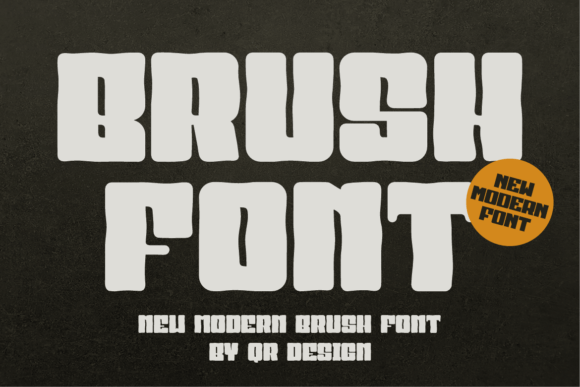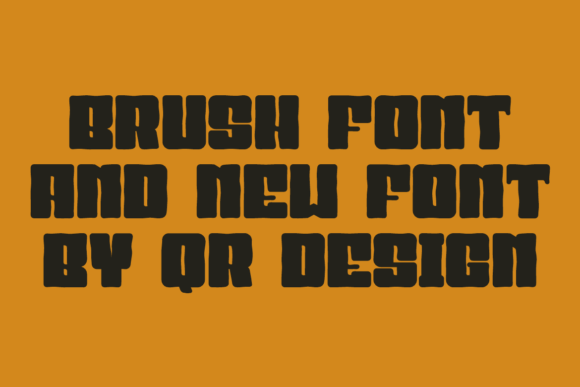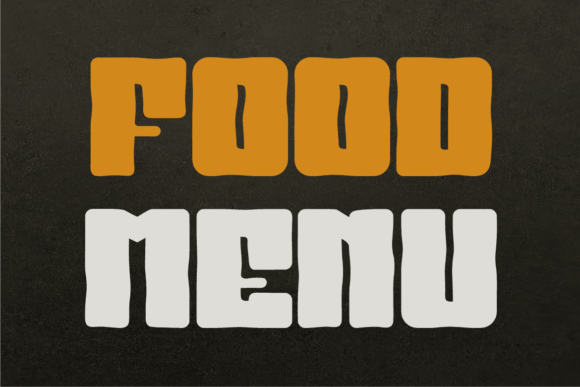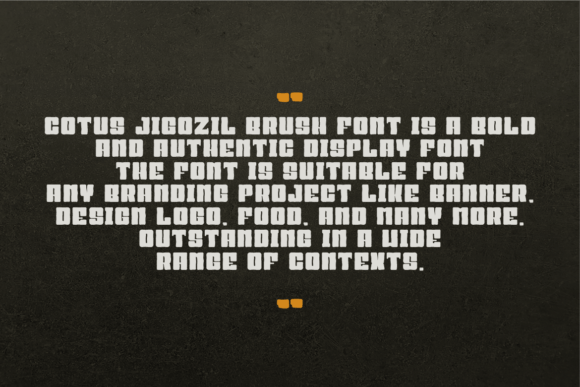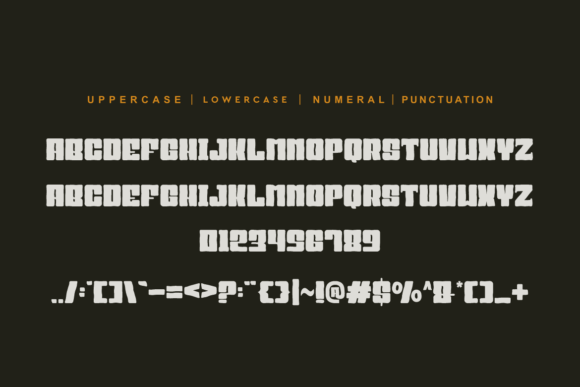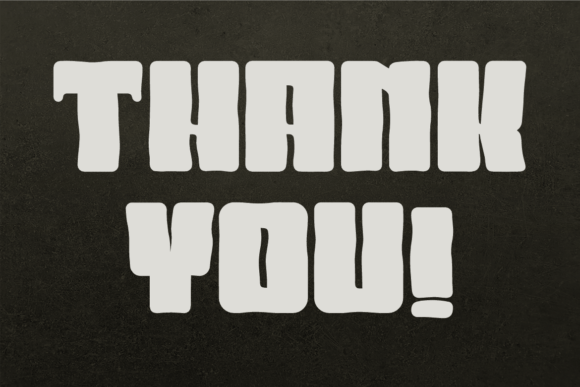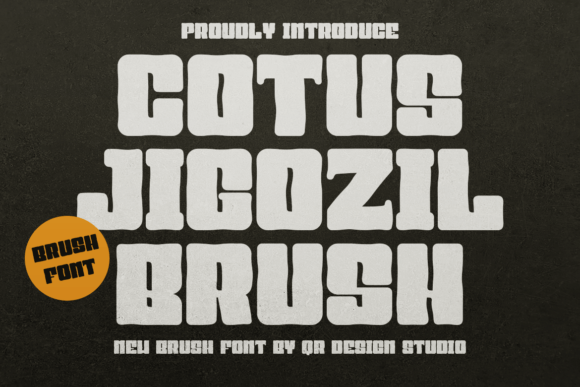
Cotus Jigozil Brush Font: Elevate Your Designs with a Bold and Authentic Display Font
In the world of typography, a font can make or break a design. When it comes to creating a lasting impression, designers and crafters need a font that is not only visually appealing but also versatile and authentic. This is where Cotus Jigozil Brush Font comes in – a bold and authentic display font that is perfect for a wide range of design projects.
What is Cotus Jigozil Brush Font?
Cotus Jigozil Brush Font is a unique and eye-catching display font that boasts a bold and authentic look. Its distinctive brush-stroked texture gives it a handcrafted feel, making it perfect for designs that require a personal touch. The font’s rugged and organic appearance makes it stand out in a wide range of contexts, from logos and t-shirt printing to food packaging and more.
Key Features of Cotus Jigozil Brush Font
- Bold and Authentic Display Font: Cotus Jigozil Brush Font is designed to make a statement. Its bold and authentic look makes it perfect for headlines, titles, and any design project that requires a strong visual impact.
- Versatile and Multi-Purpose: This font is suitable for a wide range of design projects, including logos, t-shirt printing, food packaging, and more. Its versatility makes it a valuable addition to any designer’s font library.
- Handcrafted Texture: The font’s brush-stroked texture gives it a handcrafted feel, making it perfect for designs that require a personal touch.
- Easily Readable: Despite its bold and rugged appearance, Cotus Jigozil Brush Font is easily readable, making it perfect for designs that require a clear and concise message.
Use Cases for Cotus Jigozil Brush Font
Cotus Jigozil Brush Font is perfect for a wide range of design projects, including:
- Logo Design: Create a bold and memorable logo with Cotus Jigozil Brush Font. Its unique texture and rugged appearance make it perfect for logos that require a strong visual impact.
- T-Shirt Printing: Design eye-catching t-shirts with Cotus Jigozil Brush Font. Its bold and authentic look makes it perfect for apparel design.
- Food Packaging: Add a personal touch to your food packaging design with Cotus Jigozil Brush Font. Its handcrafted texture and bold appearance make it perfect for food labels, menus, and more.
- Branding and Advertising: Use Cotus Jigozil Brush Font to create bold and attention-grabbing headlines and titles for your branding and advertising campaigns.
Why Choose Cotus Jigozil Brush Font?
- Unique and Authentic Look: Cotus Jigozil Brush Font boasts a unique and authentic look that sets it apart from other fonts.
- High-Quality Design: The font is designed with high-quality craftsmanship, ensuring that it looks great in any design project.
- Easily Customizable: Cotus Jigozil Brush Font is easily customizable, allowing designers to adjust the font to suit their design needs.